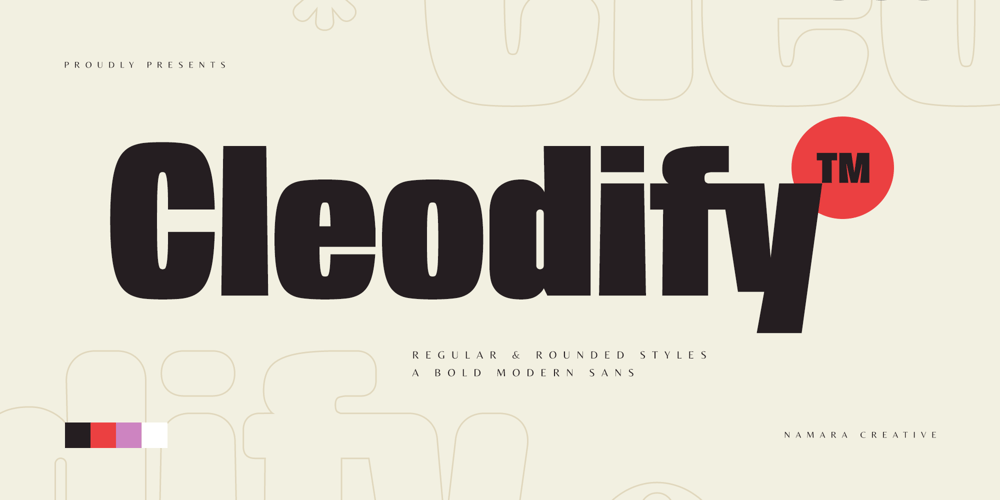
Cleodify
Cleodify font
Cleodify Font Family was designed by Toni Setiawan and published by Namara Creative Studio. Cleodify contains 2 styles and family package options. Inspired by bold & retro typefaces in the ’90s, Cleodify comes with a retro-ish style. The bold design combined with classical proportions gives a choice for creative work. Cleodify Sans is available in two style : Regular and Rounded.Features : Full Set of standard characters and punctuations. Alternates, ligatures and multilingual support characters. PUA Encoded | no special software needed to access extra characters.